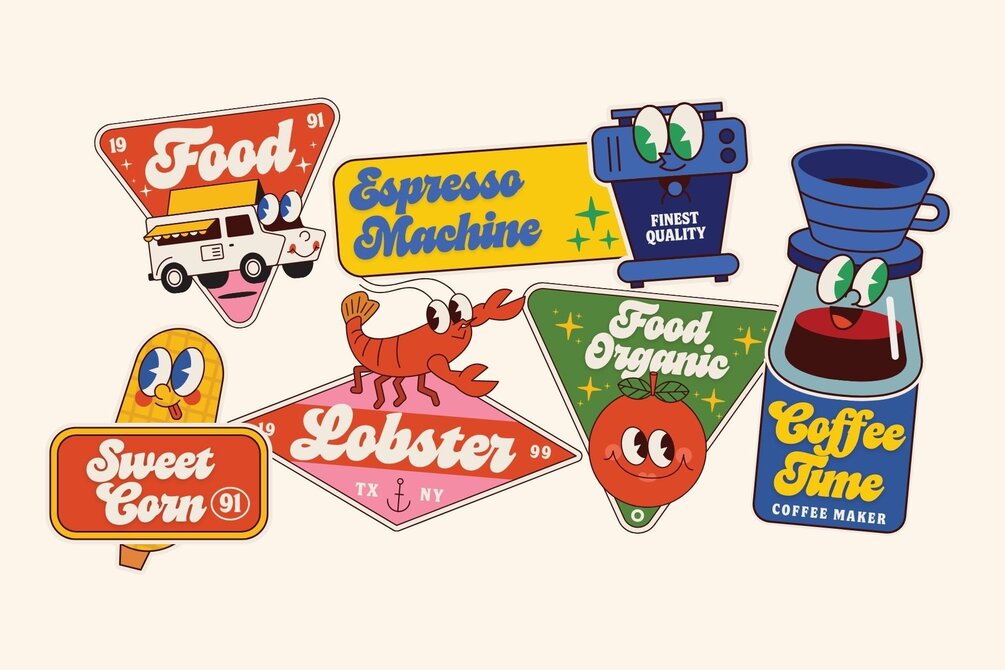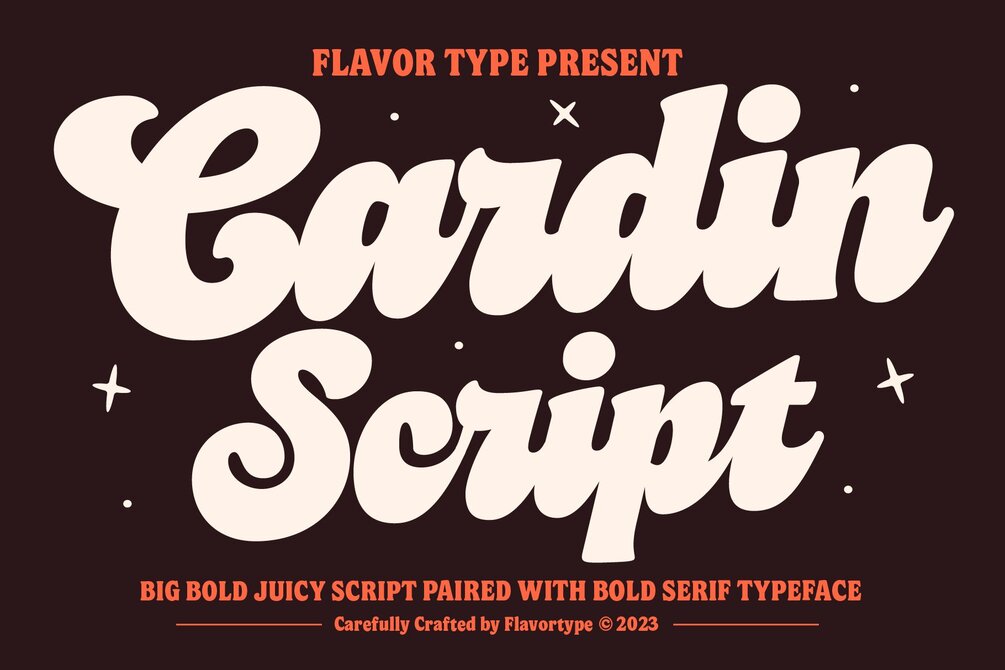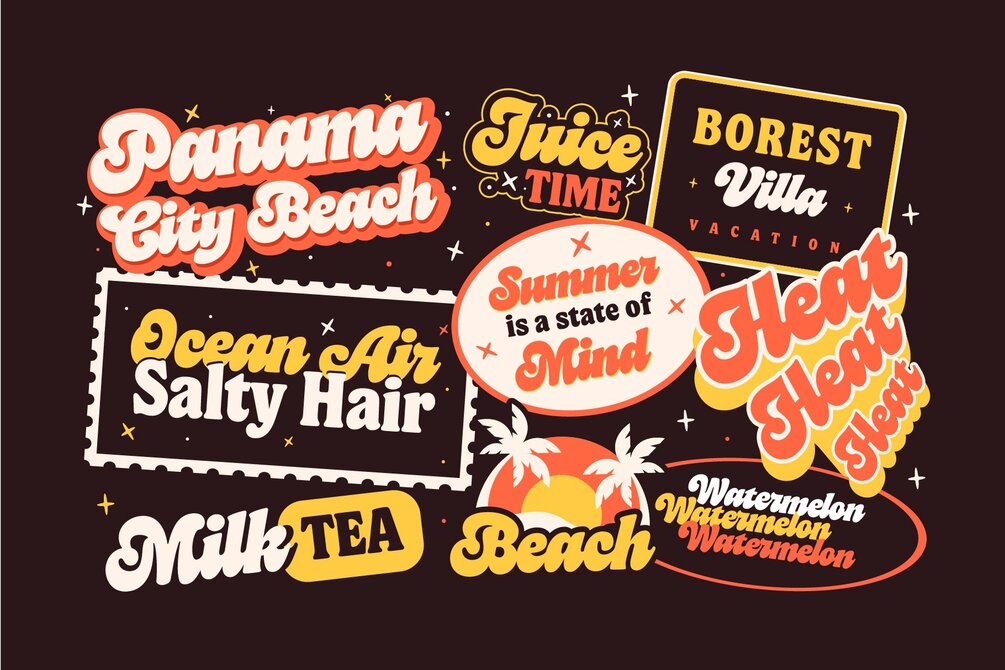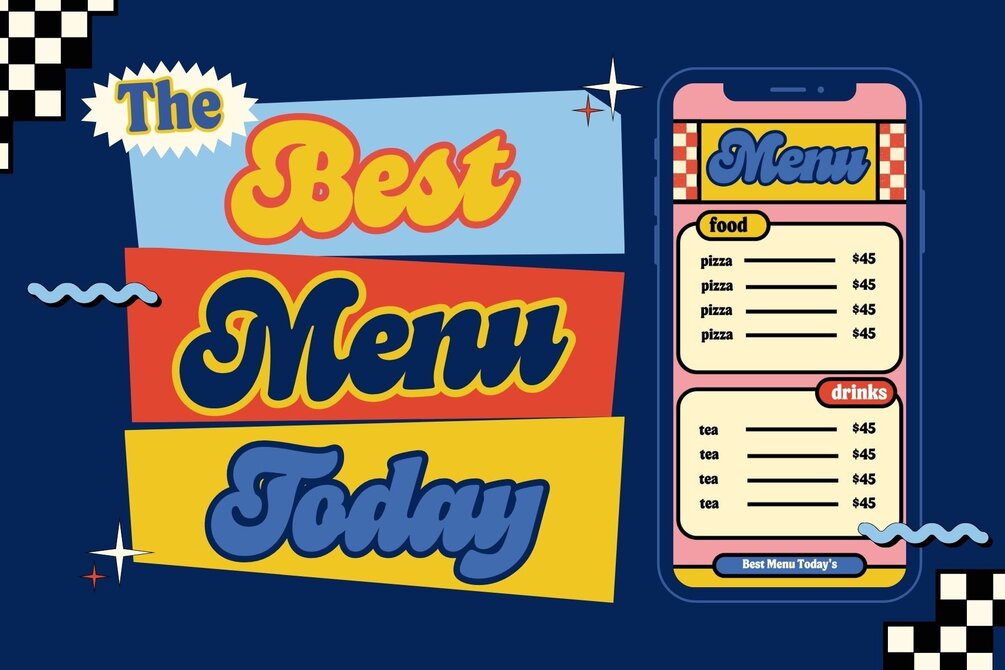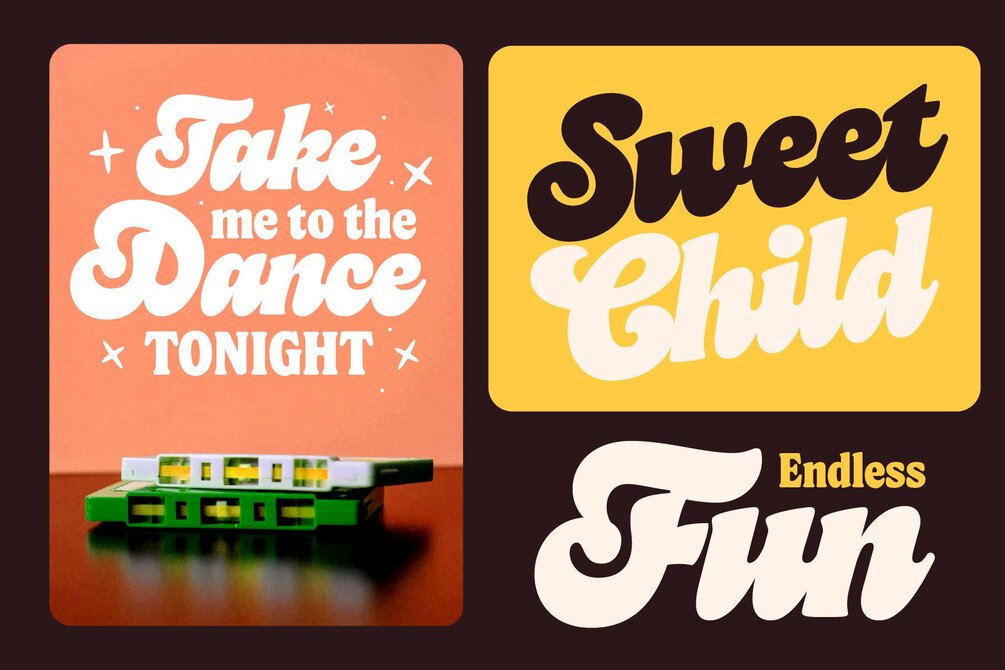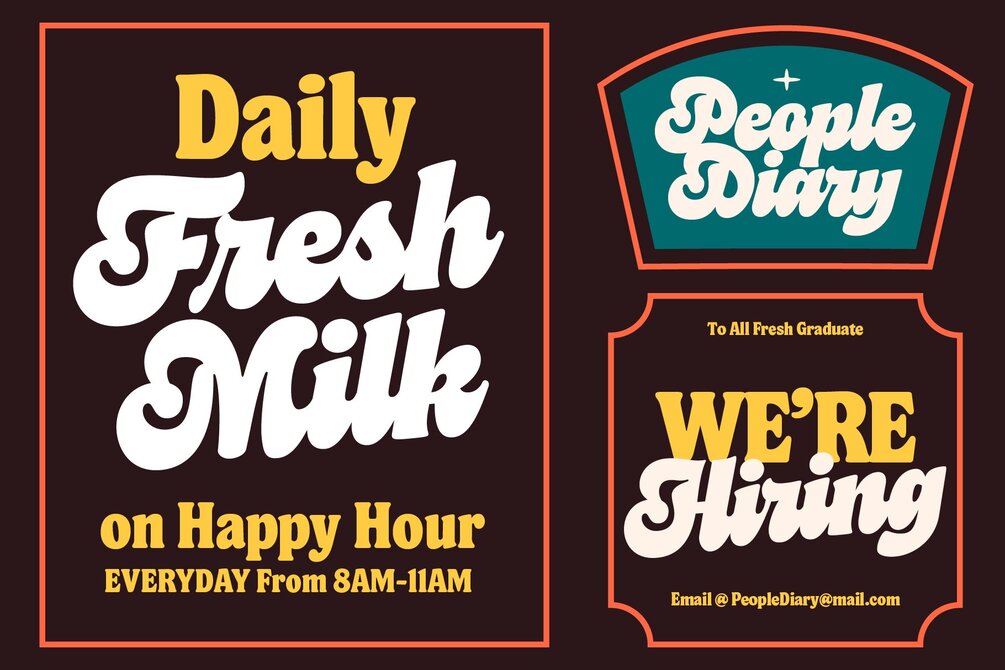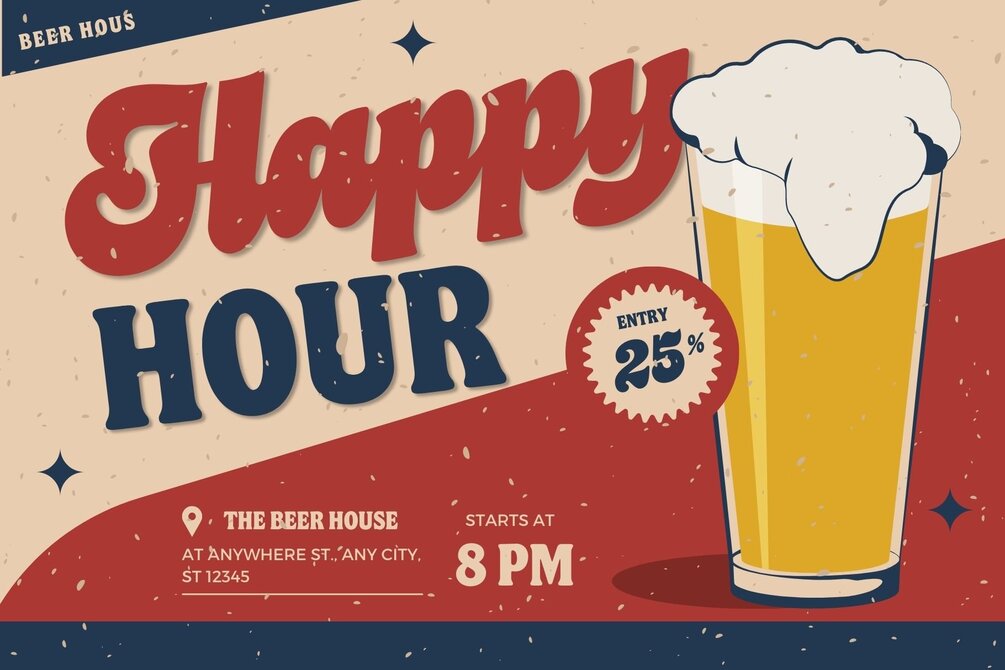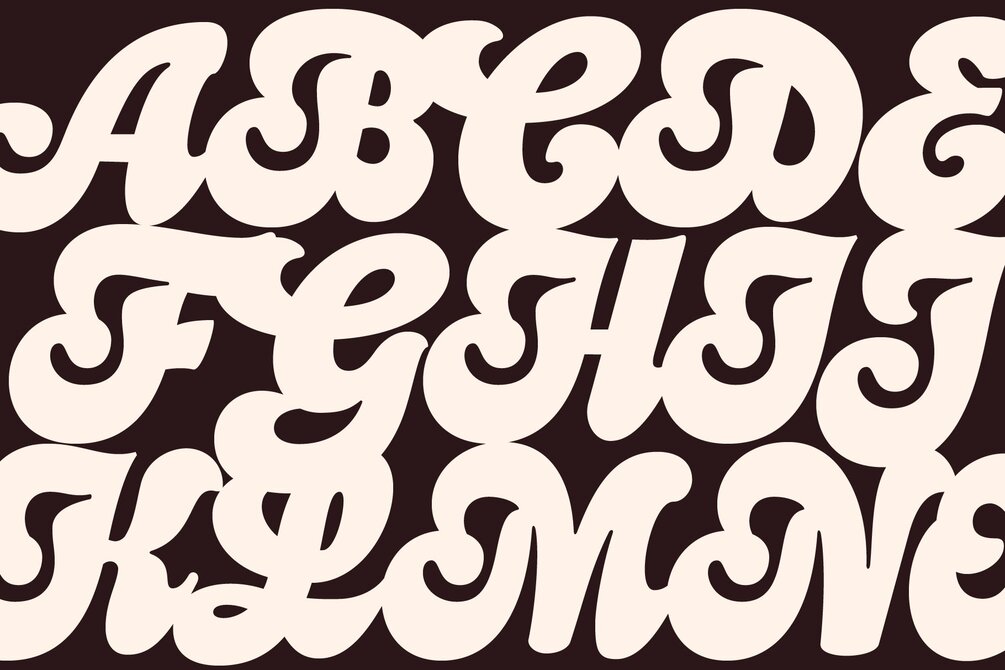
Cardin Script
We're introducing Cardin, A Big, Bold, Juicy script paired with bold serif.
A captivating duo that effortlessly combines the bold playfulness of script with the timeless elegance of serif. With two distinct styles, this font set offers the perfect blend of contemporary trends and a touch of vintage allure, resulting in a harmonious balance that is both visually striking and versatile.
The main style of Cardin is a bold script font that exudes a sense of fun, trendiness, and cuteness. Its confident strokes and dynamic curves infuse your designs with an undeniable beauty that catches the eye. With a subtle vintage touch, Cardin script adds a nostalgic charm while maintaining a fresh and modern aesthetic.
Cardin script goes beyond its visually appealing characteristics and includes an array of special features to enhance your typographic experience. Ligatures create seamless connections between letter combinations, ensuring smooth and fluid transitions that bring an added level of sophistication to your text. Contextual alternates intelligently adjust letterforms based on their surrounding characters, resulting in a natural and flowing composition. The stylistic sets provide a plethora of alternate glyphs, allowing you to experiment and find the perfect stylistic nuances to match your creative vision.